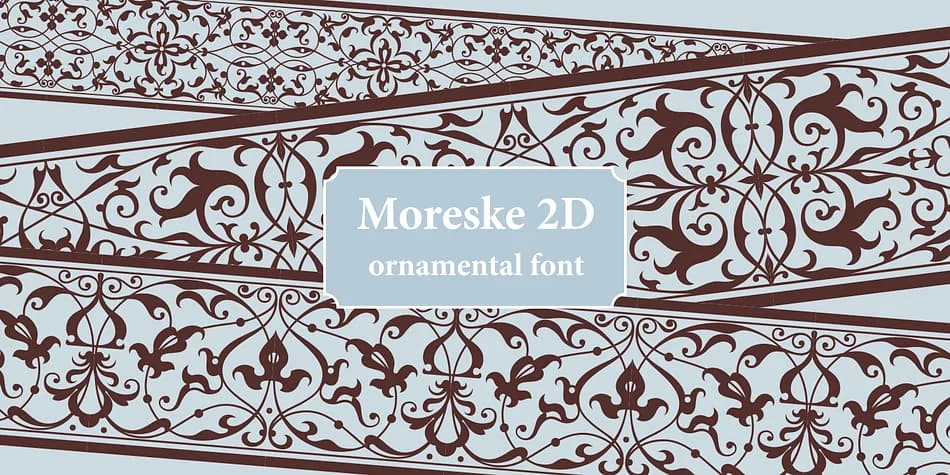
Moreske 2D by 2D Typo is an ornamental typeface drawn from a rich historical well: the intricate botanical ornaments that graced European manuscripts, printed books, and architectural details during the 16th century. The name itself traces back to Spanish and Moorish design traditions. Each character here reflects that era's fascination with stylized leaves and stems interlacing through decorative friezes and geometric enclosed forms like circles, squares, rectangles, and triangles.
The strength of this collection lies in its versatility and precision. The vector-based glyphs work beautifully as repeating border patterns for wedding invitation suites, ornamental frames for certificate designs, and embellishment rows on vintage product packaging. You can run these shapes edge-to-edge to build continuous repeat patterns, or deploy individual geometric compositions as standalone decorative elements. The meticulous attention to detail ensures these ornaments read cleanly at both large and small scales.
Beyond purely classical applications, Moreske 2D translates effectively into grunge and contemporary design systems. Layer the ornamental pieces with modern typography for book jacket designs, social media graphics with a retro aesthetic, or handmade craft labels. With multiple geometric variations, you have genuine flexibility in how you combine and remix these forms. Get Moreske 2D on Creative Fabrica and start building.
Moreske 2D Font is a versatile dingbats font that works for both headings and body text. Pair it with a contrasting sans-serif or serif font to add visual interest and a clear distinction between titles and body copy.